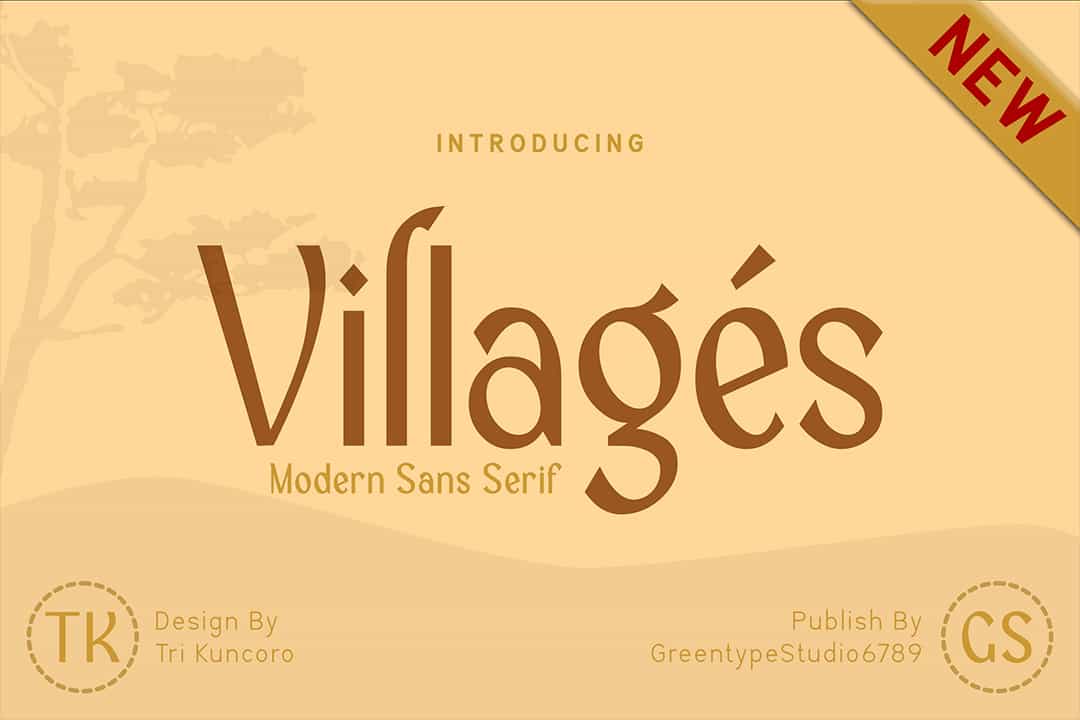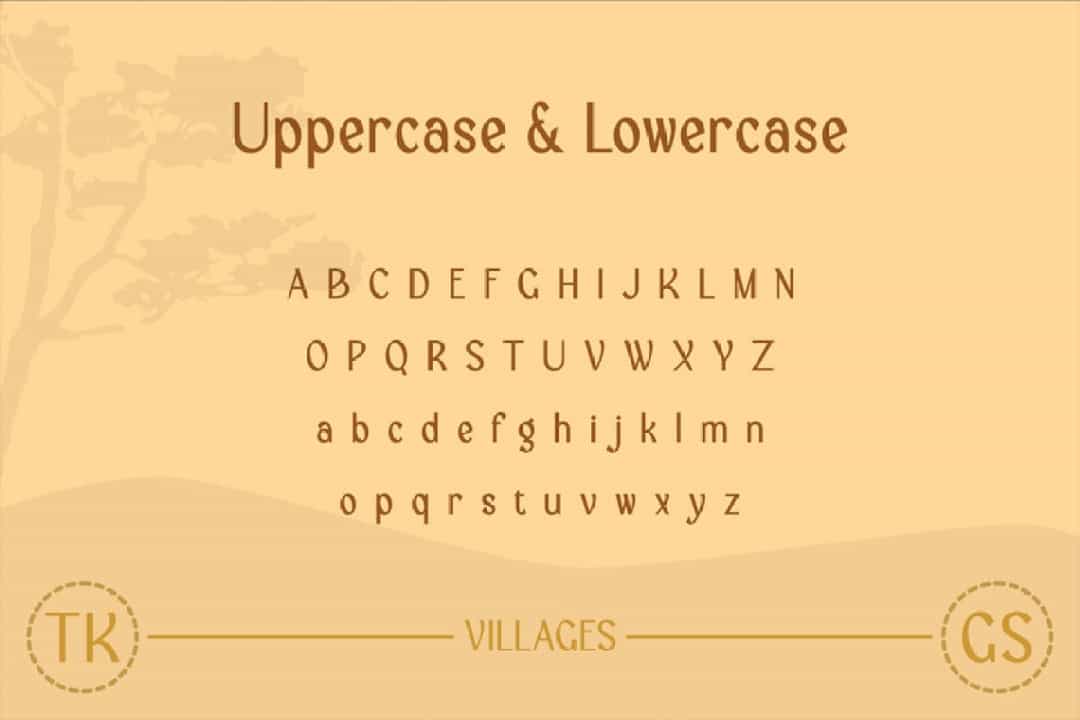
Villages is a graceful and modern Sans Serif font which is ideal for any design project and is fully designed with customization in mind! Also, this font can be PUA encoded for an added convenience – allowing any character or wash to be accessed easily!